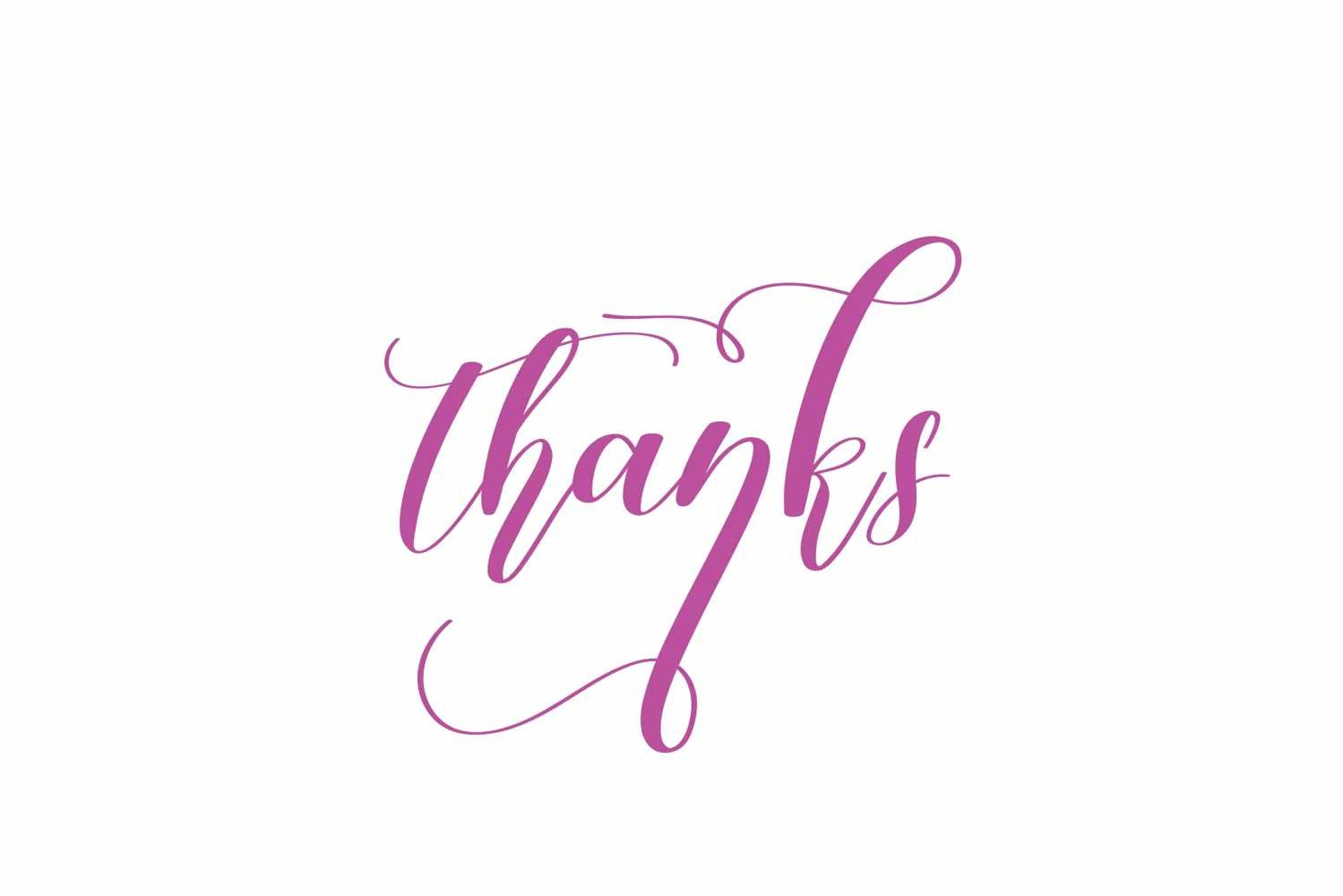
Vanillamilk | Script font
Vanillamilk Font is a popular and professional script font. It is Modern and elegant, this typeface is made of beautiful, creative strokes.